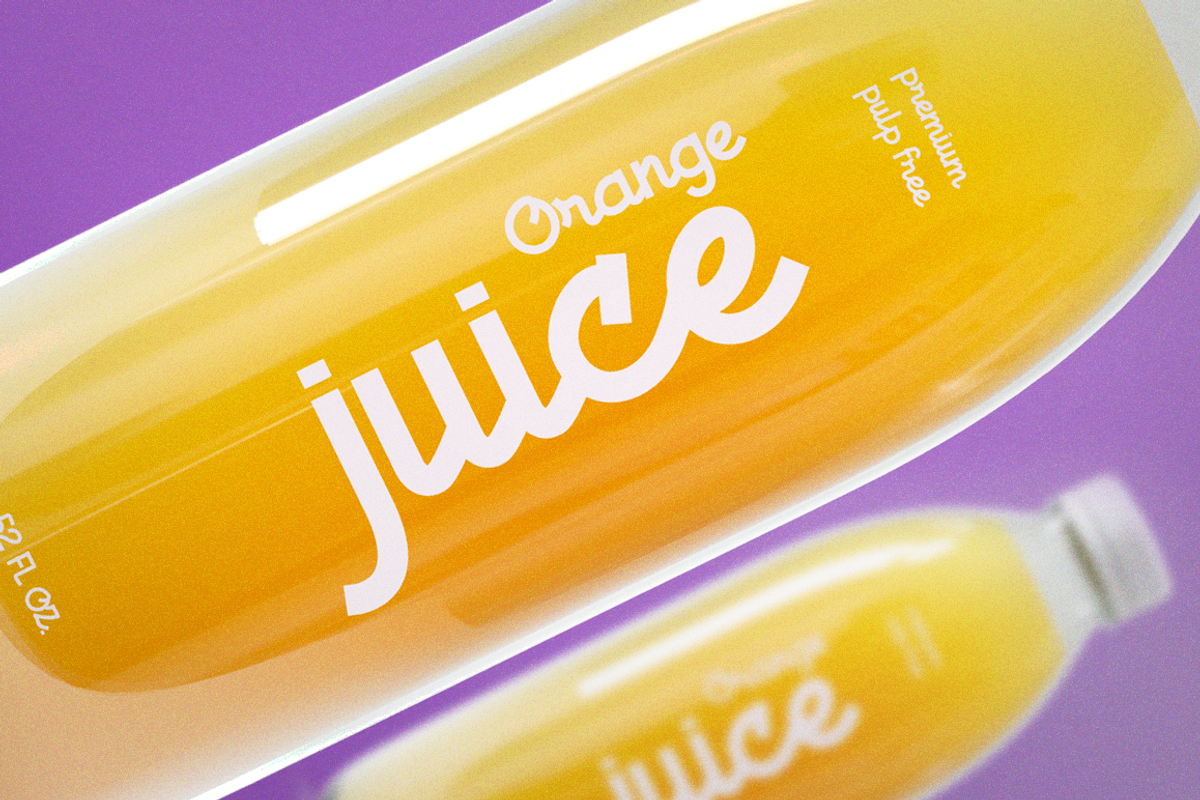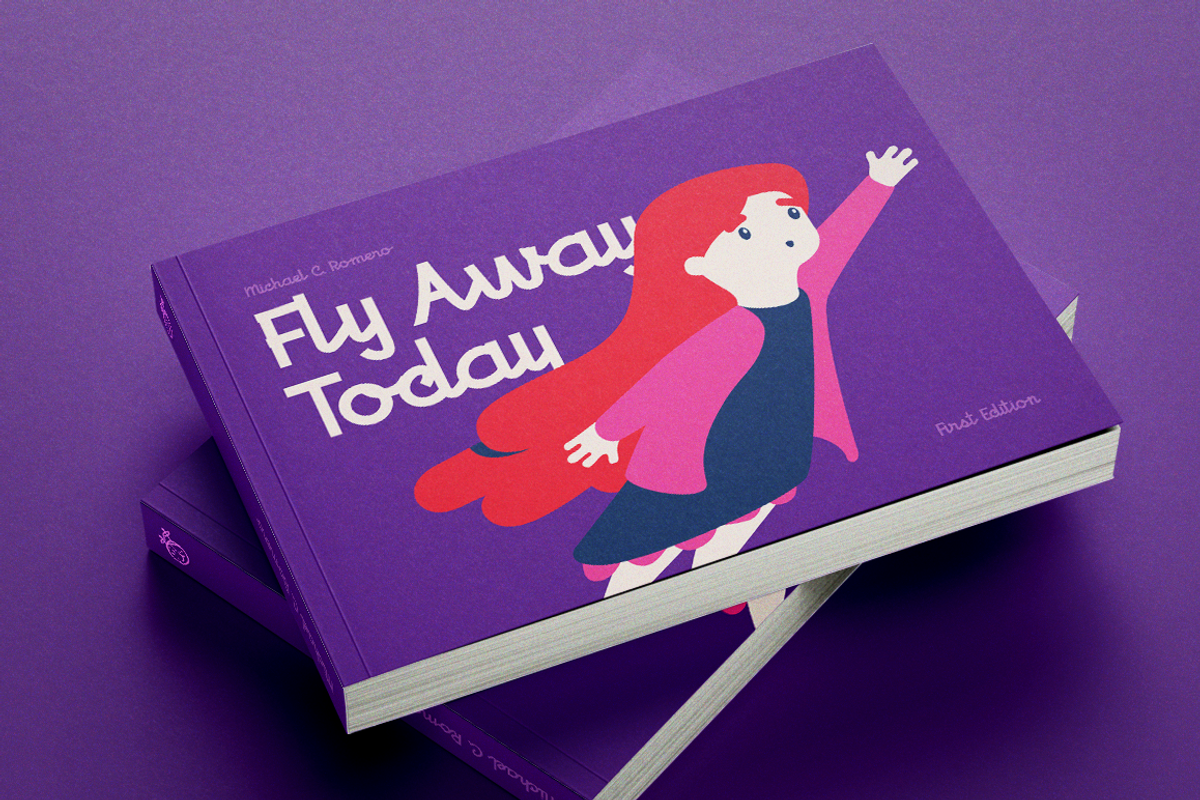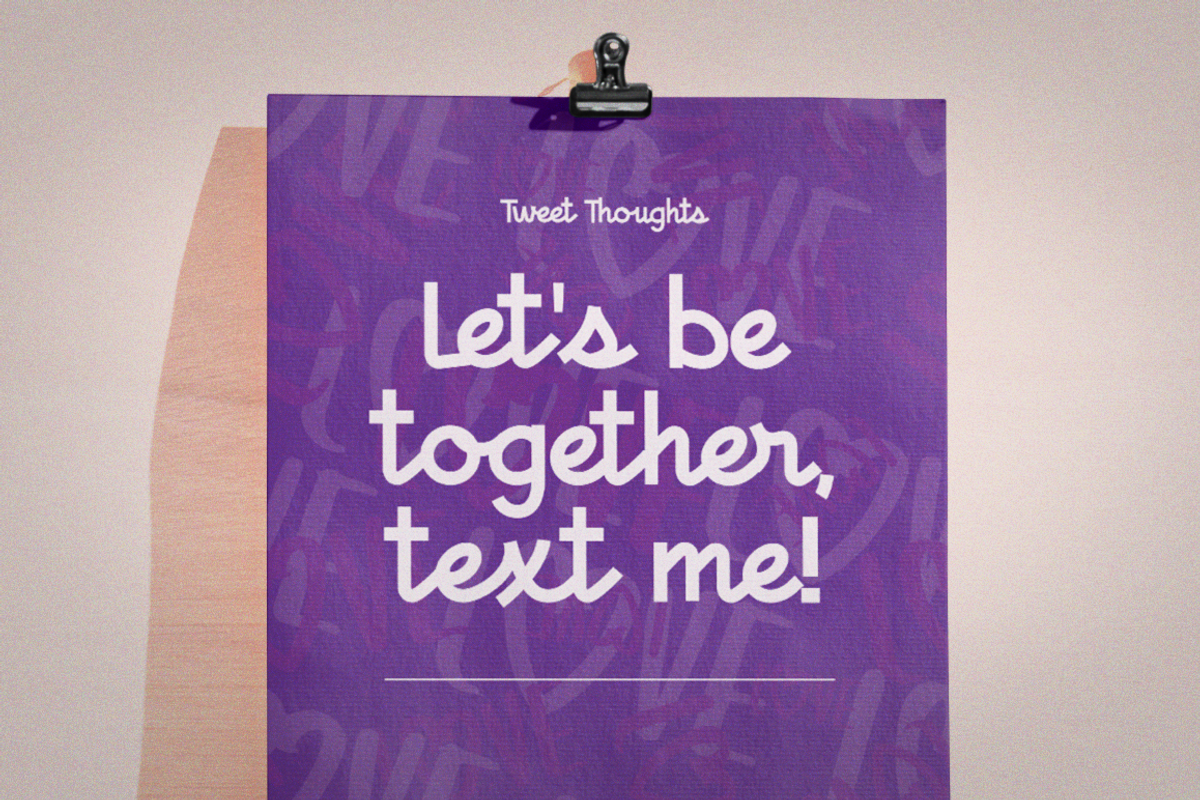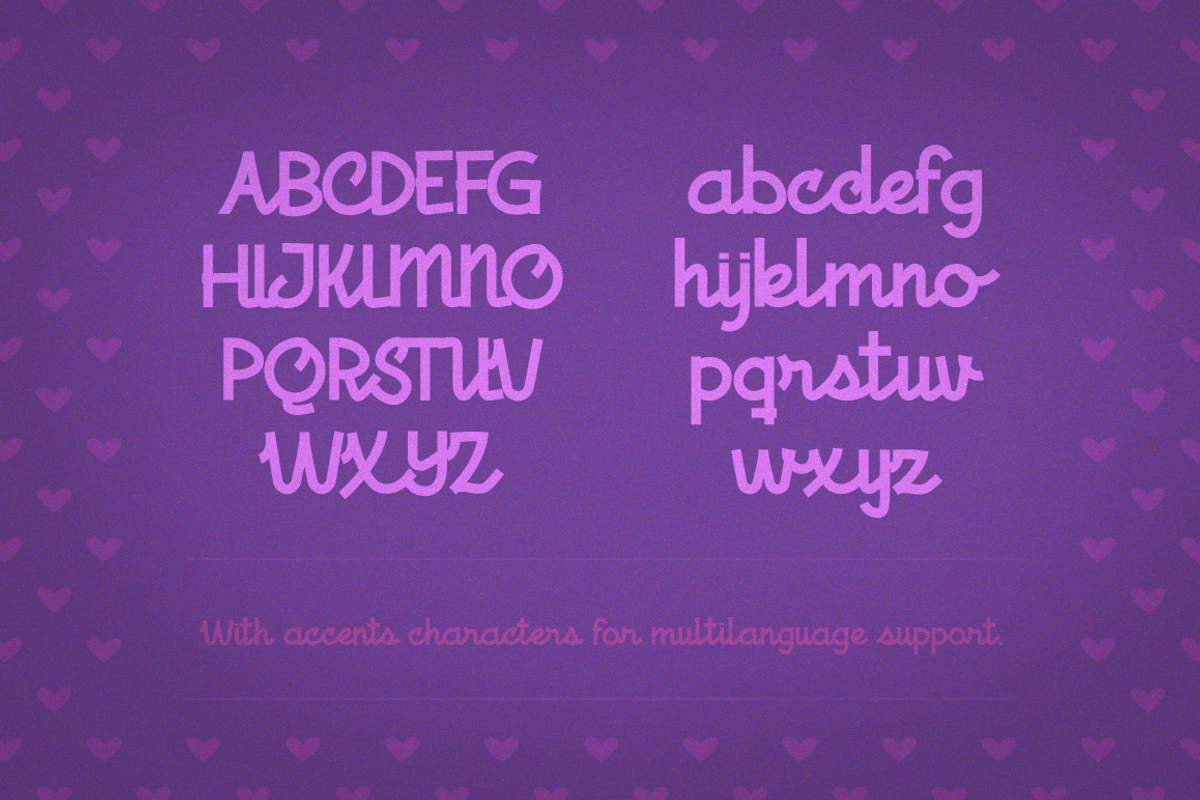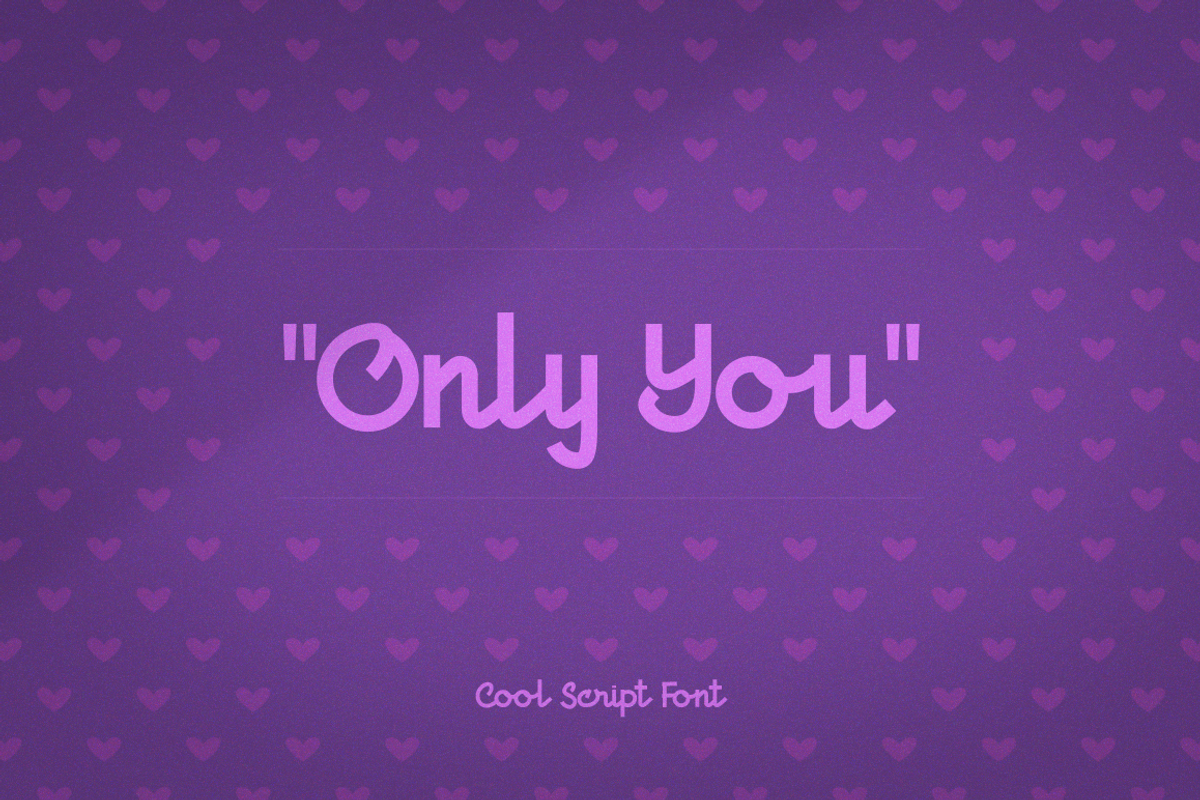
Only You
Only You is a fun and cool script style font created with upper and lower cases, with standard punctuation, and international characters for multilanguage support in mind, it comes with some standard ligatures for a more integrated look. With a fun, cute, and lovable look and feel, uses clean corners and diagonal lines to create its corky identity.